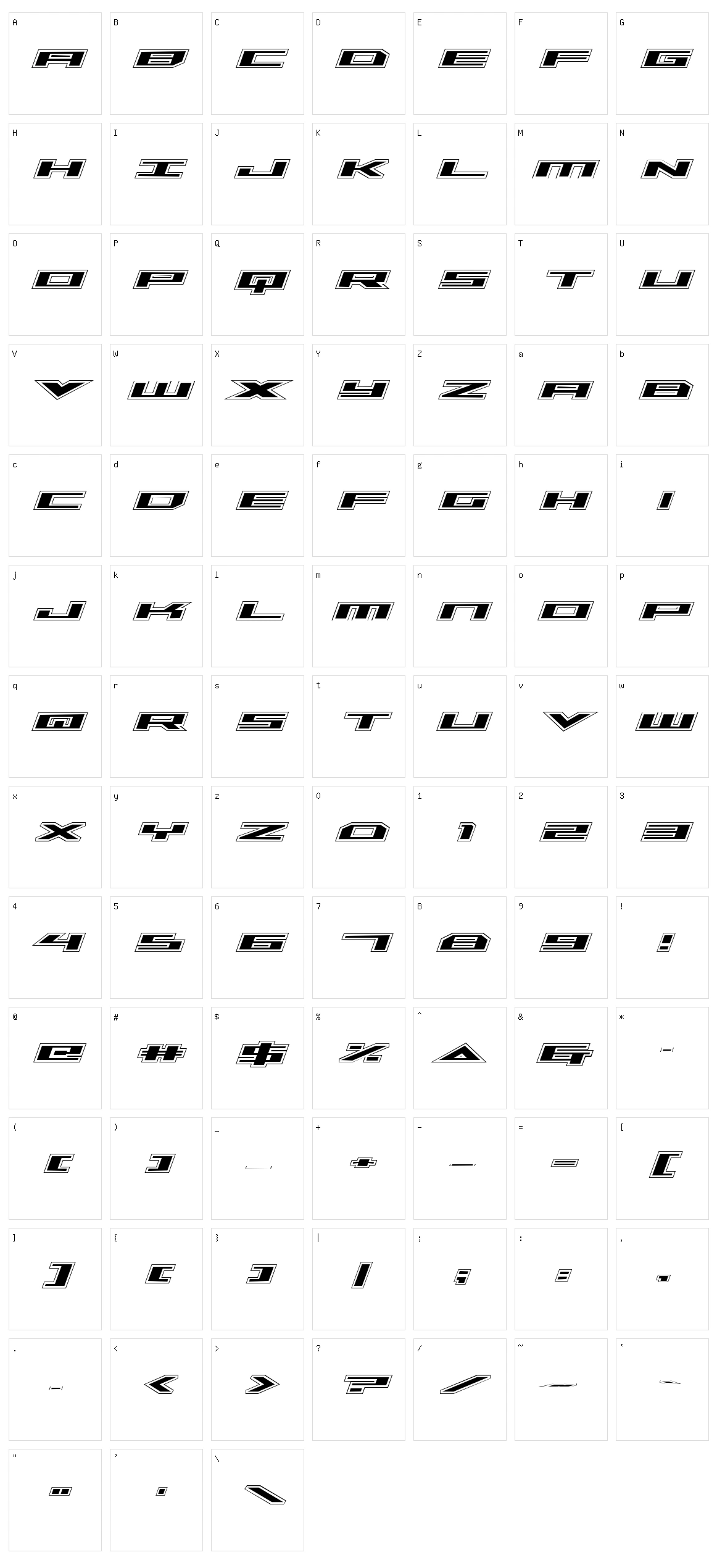
This font comes with the following 21 versions: Regular, Italic, Condensed, Condensed Italic, Expanded, Expanded Italic, Bold, Bold Italic, Condensed Bold, Condensed Bold Italic, Expanded Bold, Expanded Bold Italic, 3D, 3D Italic, Academy, Academy Italic, Laser, Laser Italic, Laser Academy, Laser Academy Italic and Leftalic.